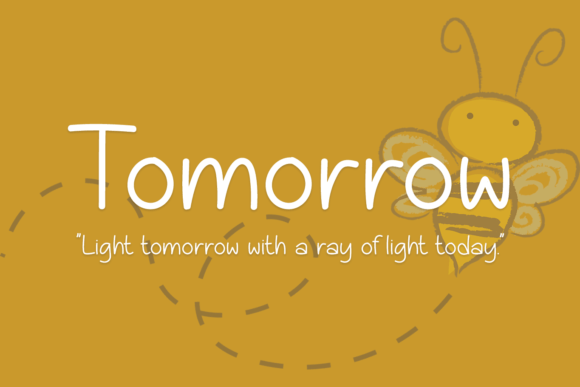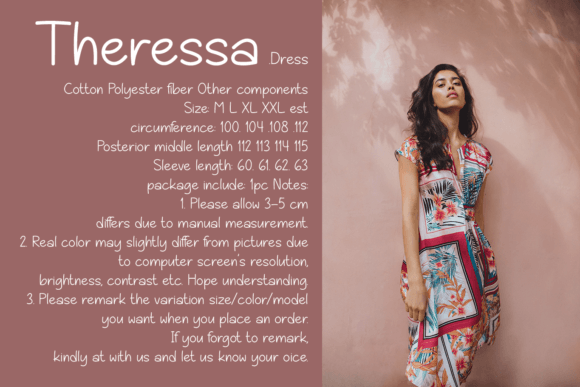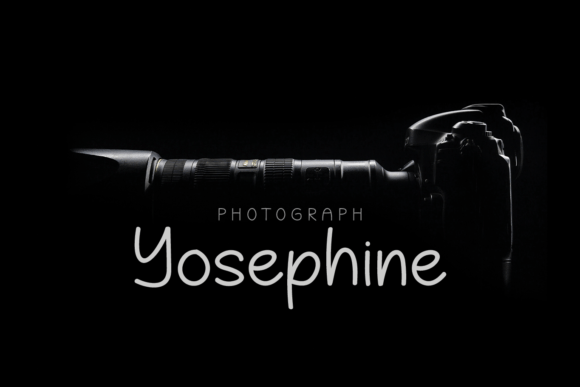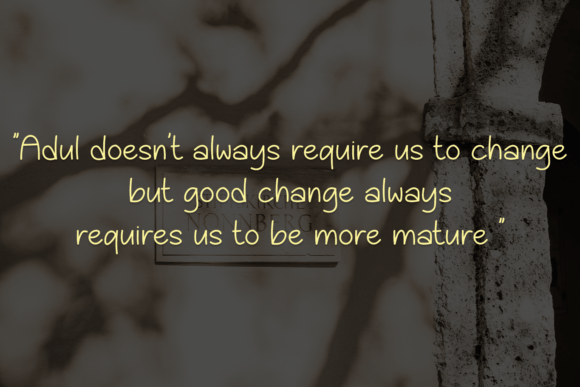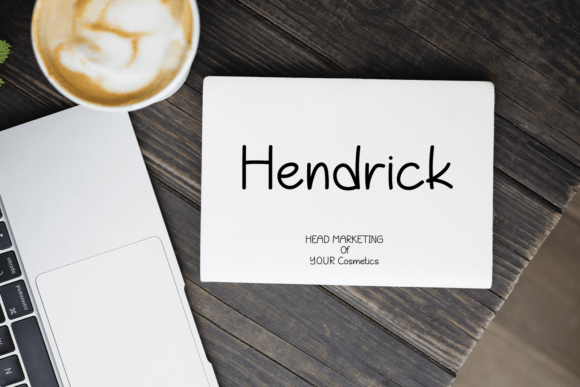
Bee Font: The Ultimate Choice for Modern Designs
In the world of typography, fonts play a crucial role in making or breaking a design. A perfect font can elevate your creative project, making it stand out from the crowd. If you’re a designer or crafter looking for a unique and contemporary font, look no further than Bee Font. In this article, we’ll dive into the world of Bee Font, exploring its features, benefits, and uses.
What is Bee Font?
Bee Font is a thin-lettered handwritten font, masterfully crafted to become a true favorite among designers and crafters. Its contemporary and fresh style makes it perfect for any design you wish to create. Whether you’re working on a logo, branding, packaging, or social media graphics, Bee Font is an excellent choice.
Key Features of Bee Font
- Thin-lettered: Bee Font features delicate, thin letters that give it a light and airy feel.
- Handwritten: The font has a personal, handwritten touch, making it perfect for designs that require a human touch.
- Contemporary: Bee Font’s modern style ensures it stays up-to-date with the latest design trends.
- Fresh: The font’s unique style gives it a fresh and exciting feel, perfect for designs that need a boost of energy.
Benefits of Using Bee Font
So, why should you choose Bee Font for your design projects? Here are some benefits of using this amazing font:
- Versatility: Bee Font is perfect for a wide range of design projects, from logos and branding to packaging and social media graphics.
- Readability: The font’s thin letters and clear style ensure excellent readability, even at small sizes.
- Uniqueness: Bee Font’s distinctive style sets it apart from other fonts, making your designs stand out from the crowd.
- Ease of use: The font is easy to use and pairs well with other fonts, making it perfect for designers of all levels.
How to Use Bee Font in Your Designs
Now that we’ve explored the features and benefits of Bee Font, let’s discuss how to use it in your designs:
- Pair it with bold fonts: Combine Bee Font with bold fonts for a striking contrast that adds visual interest to your designs.
- Use it for headings: Bee Font is perfect for headings, titles, and subtitles, adding a touch of elegance to your designs.
- Add it to your branding: Use Bee Font as part of your brand identity, making your logo and branding materials stand out.
- Experiment with colors: Bee Font looks great in a variety of colors, so don’t be afraid to experiment and find the perfect hue for your design.
Who Can Benefit from Bee Font?
Bee Font is perfect for a wide range of designers and crafters, including:
- Graphic designers: Bee Font is a great addition to any graphic designer’s toolkit, suitable for a variety of projects.
- Log designers: The font’s unique style makes it perfect for logo design, helping your clients stand out.
- Crafters: Bee Font is ideal for crafters who want to add a personal touch to their projects, such as handmade cards and invitations.
- Social media influencers: Use Bee Font to create eye-catching social media graphics that showcase your brand’s personality.
In conclusion, Bee Font is an exceptional choice for designers and crafters looking for a unique, contemporary, and fresh font. Its thin-lettered handwritten style, versatility, and ease of use make it perfect for a wide range of design projects. Whether you’re a seasoned designer or a beginner, Bee Font is sure to become a true favorite in your toolkit. So why wait? Add Bee Font to your creative projects and make them outstanding!